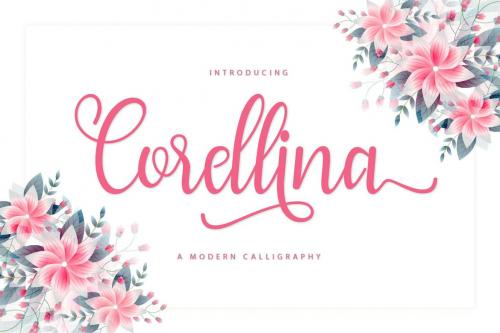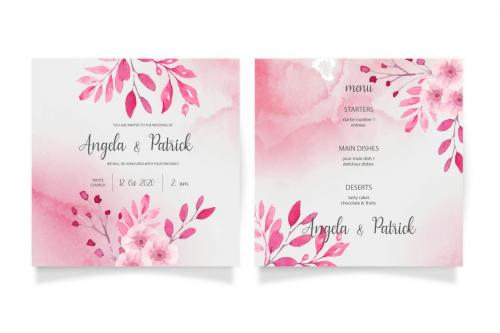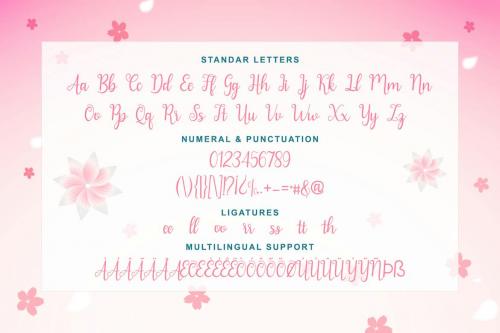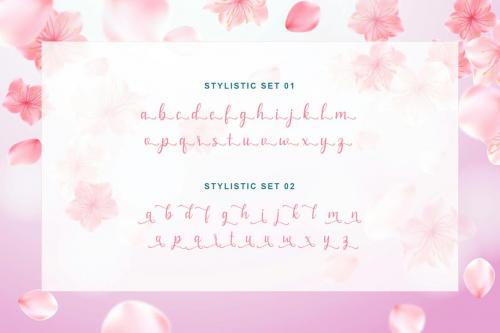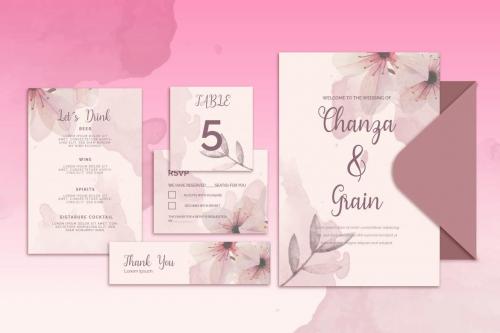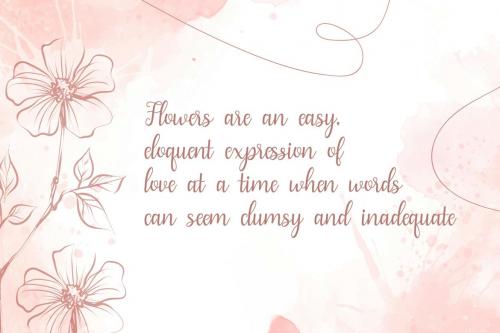
科里拉娜 - 睿笔字体
Corellina - Calligraphy Font
Corellina is a beautiful script font for a variety of designs. Corellina can be used for products such as handcraft, product packaging, quotes, product design, craftsmen, lanels, photography, watermarks, logos & branding. Everything can be accessed using software that supports Opentype, such as Adobe Indesign, Adobe CS IIustrator, Adobe Photoshop CC, and Corel Draw.